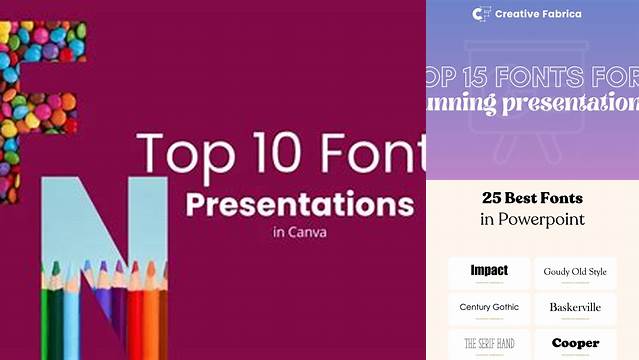
Top Windows Fonts For Stunning Presentations
Hey everyone! Presentations, right? We've all been there, sweating bullets, hoping the audience doesn't fall asleep. One of the easiest ways to keep them engaged is by using the best Windows fonts for your presentation. Seriously, a good font can make or break your entire slideshow. It's like choosing the right outfit; you want to look good, feel confident, and make a lasting impression. Today, we're diving deep into the world of fonts, specifically the ones that work like a charm on Windows. We'll explore various styles, readability tips, and how to pick the perfect font for your next big presentation. Get ready to transform your presentations from snooze-fests to absolute showstoppers! Let's get started, shall we?
1. Why Font Choice Matters in Presentations?
Alright, let's get real for a sec. Why should you even care about fonts? Isn't it just about the content? Well, yeah, content is king, but the font is the crown. It's the visual language that speaks before you even utter a word. Think of it like this: your font choice sets the tone, communicates your personality, and influences how your audience perceives your message. A clunky, hard-to-read font can instantly lose your audience, making them struggle to understand your points. On the other hand, a clean, well-chosen font keeps them engaged and makes your presentation more professional. Fonts help you establish visual hierarchy, making it easy for the audience to follow your main points. It guides their eyes, ensuring they focus on what’s most important. You want to appear polished and professional, and that's why the best Windows fonts are your secret weapon. Using the right font shows that you pay attention to detail, care about your audience, and want to deliver a message that’s both compelling and easy to digest. It's about creating a visual experience that complements your words and leaves a lasting impact.
2. Understanding Font Types: Serif vs. Sans-Serif
Okay, before we get into specific font recommendations, let's break down the basics: Serif vs. Sans-Serif. Think of it as choosing between a tuxedo and a casual outfit. Serif fonts have little decorative strokes, called serifs, at the end of each letter. They look classy and traditional, often used for body text in print, like books. Examples include Times New Roman and Garamond. Serif fonts can sometimes look a bit formal, which might not always be the vibe you want in a presentation. Then there's the sans-serif. These fonts lack the decorative strokes and have a clean, modern look. Sans-serif fonts are generally considered more readable on screens, making them perfect for presentations. They are clear, concise, and easy on the eyes. Popular examples include Arial, Calibri, and Helvetica. But the choice isn't always black and white, guys. It depends on the context of your presentation. If you're going for a more traditional or formal feel, a serif font like Georgia might work. But for most presentations, especially on screens, the best Windows fonts in the sans-serif category are usually the way to go. Consider your audience, the content, and the overall style you want to achieve.
3. The Readability Factor: Font Size and Spacing
Alright, so you've chosen your font. Great! But hold up; you're not done yet. Readability is super important. You want everyone in the back row to be able to read your slides without squinting. Font size is key. A good rule of thumb is to use a minimum of 24 points for body text and even larger for headlines. It's always better to err on the side of bigger. Nobody wants to be the presentation where people strain to read the text. Think of your audience's comfort. Also, spacing matters. Make sure there's enough space between your lines of text (leading) and between your letters (tracking). Too little spacing, and your text will look cramped and difficult to read. Too much, and it will appear disjointed. Most presentation software allows you to adjust these settings, so play around with them until you find what looks best. Experiment with different combinations of font size and spacing to find the right balance. Remember, readability is all about making your content accessible and easy to understand. You want your audience to focus on your message, not on trying to decipher your slides. By using the best Windows fonts with appropriate sizes and spacing, you can ensure a smooth and engaging presentation experience.
4. Top 5 Sans-Serif Fonts for Windows Presentations
Okay, let's get to the good stuff! Here are five of the top sans-serif fonts that are ideal for Windows presentations. First up, we have Arial. It's a classic for a reason, guys. It's clean, simple, and super readable on screens. It's a safe choice and works well in almost any context. Next, we have Calibri. It's the default font for Microsoft Office, so it's a familiar face. Calibri has a slightly softer feel than Arial, making it a good choice for a more relaxed presentation. Then there's Helvetica. Ah, the font of fonts. It's clean, modern, and versatile, used everywhere from subway signs to websites. It gives your presentation a sophisticated touch. Segoe UI is another great option. Designed by Microsoft, it's optimized for screen display and is very readable. It's a modern, clean font that fits well with a variety of themes. Finally, we have Open Sans. It’s a versatile sans-serif font designed for readability on both print and screens. It's a free font, meaning you can easily download and use it. These are all excellent choices and can be considered some of the best Windows fonts you can use.
5. Choosing the Right Font for Your Presentation's Theme
Alright, so we've got our font options, but how do you choose the right one? Think about the theme of your presentation. What message are you trying to convey? Is it a serious business pitch? A fun and creative workshop? The font should match the overall vibe. For a formal presentation, a clean and professional font like Helvetica or Calibri would be excellent. For something more casual or creative, Open Sans or Segoe UI might be a better fit. Consider the audience, too. What are their expectations? What will resonate with them? If you're presenting to a tech-savvy crowd, a modern font like Open Sans can work great. If your audience is more traditional, stick with something like Arial or Calibri. Don't be afraid to experiment! Try out a few different fonts and see how they look with your content. Create a few slides with each font and get feedback from others. This will help you find the best Windows fonts that perfectly complement your message and audience.
6. Using Font Weights and Styles for Emphasis
Okay, so you've got your font and your theme down, but how do you emphasize important points? Here's where font weights and styles come into play. Font weights refer to the thickness of the font, like bold, regular, or light. Using bold text can help draw attention to key phrases or headings. Just don't overdo it! Using too much bolding can be distracting and make your slides look cluttered. Regular weight is perfect for body text, ensuring it’s easy to read without drawing too much attention to itself. Font styles, like italics, can also be used for emphasis. Italics are great for quoting or highlighting a specific term. Again, moderation is key. Overusing italics can make your text difficult to read. Experiment with different weights and styles to create a visual hierarchy on your slides. The goal is to guide the audience's eye and make it easy for them to understand your main points. Use bold for emphasis and italics for a subtle touch. Pairing the best Windows fonts with thoughtful use of weights and styles is a great way to make your presentations visually appealing and highly effective.
7. Color Coordination: Font Color and Background
Alright, let’s talk about colors. Font color and background are super important for readability. You want to make sure your text stands out and is easy to see. The best way to do this is to create contrast. Dark text on a light background or light text on a dark background. Avoid using similar colors, such as light gray text on a white background. This makes your slides hard to read and can strain the eyes. Consider your audience's comfort. Bright colors can be distracting and tiring to look at for extended periods. Stick with a clean, professional color palette. White text on a dark blue background is a great option. Black text on a white background is classic and works well. Experiment with different color combinations, but always prioritize readability. And of course, keep in mind your presentation's overall theme and brand. Use colors that complement each other and reflect the message you're trying to convey. Combining the best Windows fonts with good color choices is essential for a polished and professional presentation.
8. Font Pairing: Finding Complementary Font Combinations
Let’s get a little fancy now and talk about font pairing. Choosing a single font for your entire presentation is a great starting point, but mixing and matching can add visual interest. Font pairing is the art of combining two or more fonts that complement each other, creating a more dynamic and engaging look. Think about it like this: you want a harmonious blend, not a clash. One common approach is to pair a sans-serif font for headings with a serif font for body text. This creates contrast and visual interest. Another option is to use different weights or styles of the same font. For example, use a bold version for headings and a regular version for the body text. Avoid pairing fonts that are too similar, as this can look amateurish. There are tons of online resources that can provide font pairing suggestions. Explore these options and experiment until you find combinations that you like. Remember, the best Windows fonts when paired thoughtfully will make your presentation more visually appealing.
9. Avoiding Common Font Mistakes in Presentations
Alright, let’s cover some common font mistakes that can sabotage your presentation. Avoid using too many different fonts. Sticking to two or three fonts maximum will help maintain consistency and professionalism. Another mistake is using fonts that are too small. Always prioritize readability. Make sure your font size is large enough for everyone to see. Avoid overusing bold and italics. Too much emphasis can be distracting and make your slides look cluttered. Another common mistake is using fonts that are difficult to read, especially on screens. Stick with clear, legible fonts. Finally, make sure to consider color contrast. Avoid using light text on a light background or dark text on a dark background. By avoiding these common mistakes, you can ensure your presentation looks polished and professional. Choosing the best Windows fonts is just one part of the puzzle. Avoiding these mistakes will take your presentation from good to great!
10. Testing Your Presentation on Different Devices
Okay, so you've designed your presentation, chosen the perfect fonts, and everything looks amazing on your computer. But before you pat yourself on the back, here's a crucial step: testing on different devices. You never know where your presentation will be viewed. It might be on a projector, a laptop, a tablet, or even a smartphone. Fonts can render differently on different devices. What looks great on your screen might look distorted or unreadable on another device. Therefore, always test your presentation on multiple devices before the actual presentation. Check for font scaling issues, color discrepancies, and any other formatting problems. Make any necessary adjustments to ensure your presentation looks consistent across all devices. This simple step can save you from an embarrassing moment during your presentation. When testing, make sure you choose the best Windows fonts that render well across a range of devices.
11. Updating Your Fonts: Keeping Up with Trends
The world of design is always evolving, and the same goes for fonts. Staying up-to-date with current font trends can help keep your presentations fresh and modern. Experiment with new fonts that are gaining popularity. Explore online resources, such as font websites and design blogs, to discover trending fonts. Don't be afraid to step outside your comfort zone and try something new. You might find a font that perfectly matches your brand or the theme of your presentation. However, remember to balance trends with readability and practicality. Just because a font is trendy doesn't mean it’s suitable for presentations. Always prioritize your audience's comfort and comprehension. Consider the overall theme of your presentation, and make sure the new font aligns with it. Keep in mind, the best Windows fonts that are right for you are not always those that are trendy. Finding the right balance between trends, readability, and the overall message will keep your presentations fresh and effective.
12. Customizing Fonts: Tweaking for Your Unique Style
Now, let's talk about customization. Sometimes, you might want to personalize your fonts to reflect your unique style. Many presentation software programs allow you to adjust font sizes, weights, and spacing. Get creative with different combinations. Play with character spacing and kerning to improve readability. Kerning is the space between specific letter pairs. This subtle adjustment can greatly enhance the overall appearance of your text. You can also customize font colors and backgrounds to match your brand or theme. By customizing your fonts, you can create a presentation that is truly unique and memorable. However, be cautious when making changes. Too much customization can make your presentation look cluttered and unprofessional. Always prioritize readability and clarity. Start with the best Windows fonts and then make small adjustments that enhance your message.